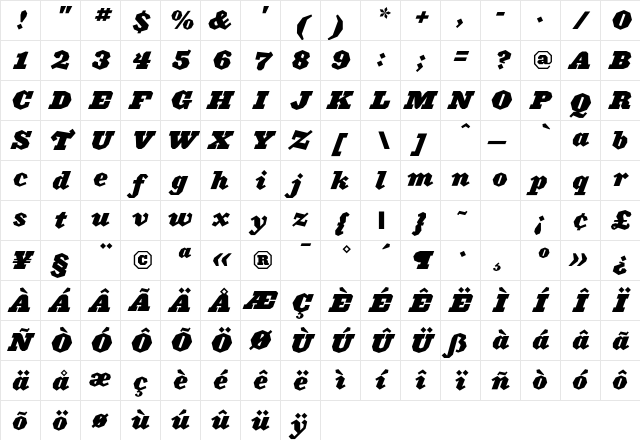
Acropolis HTF-Black-Italic
Design Context for Acropolis
Acropolis is a composed and adaptable typeface that performs quietly and consistently across a wide range of design contexts. The slanted form adds forward momentum and visual energy.
Pro Tip: Use Acropolis for emphasis, pull quotes, and subheadings where its slanted energy can add rhythm to the layout.